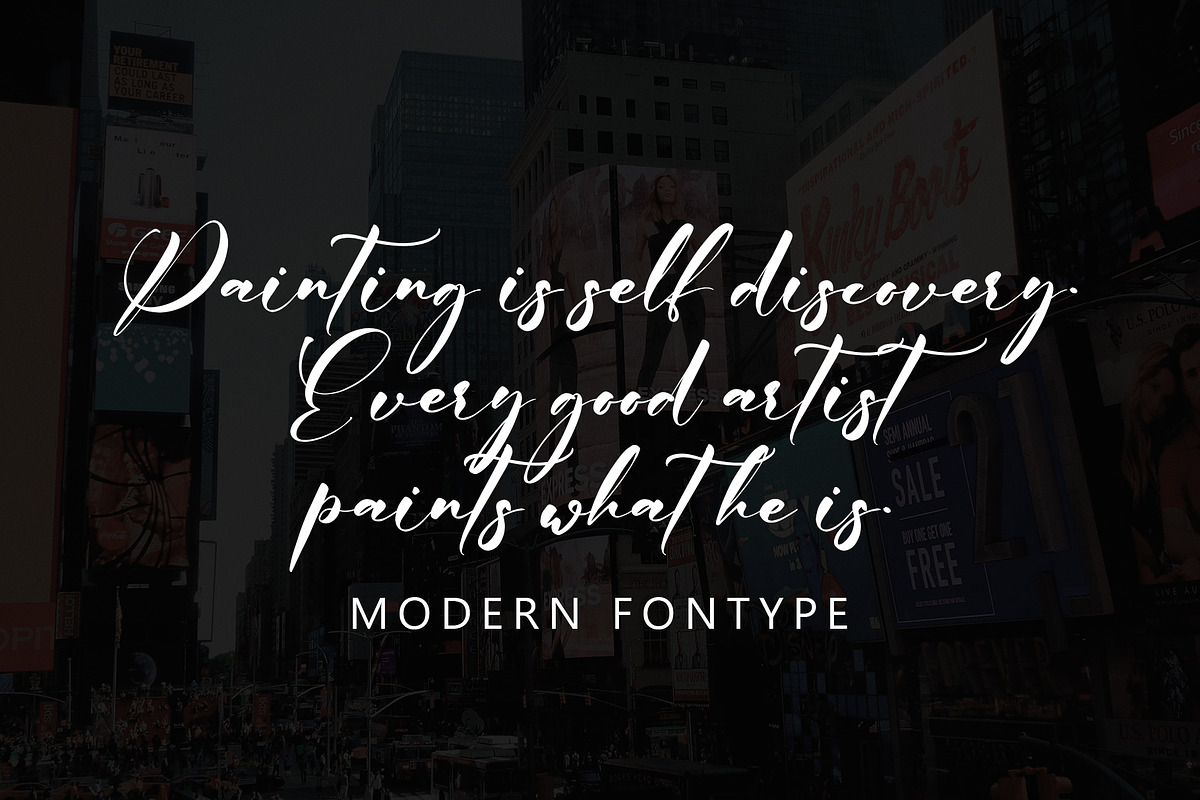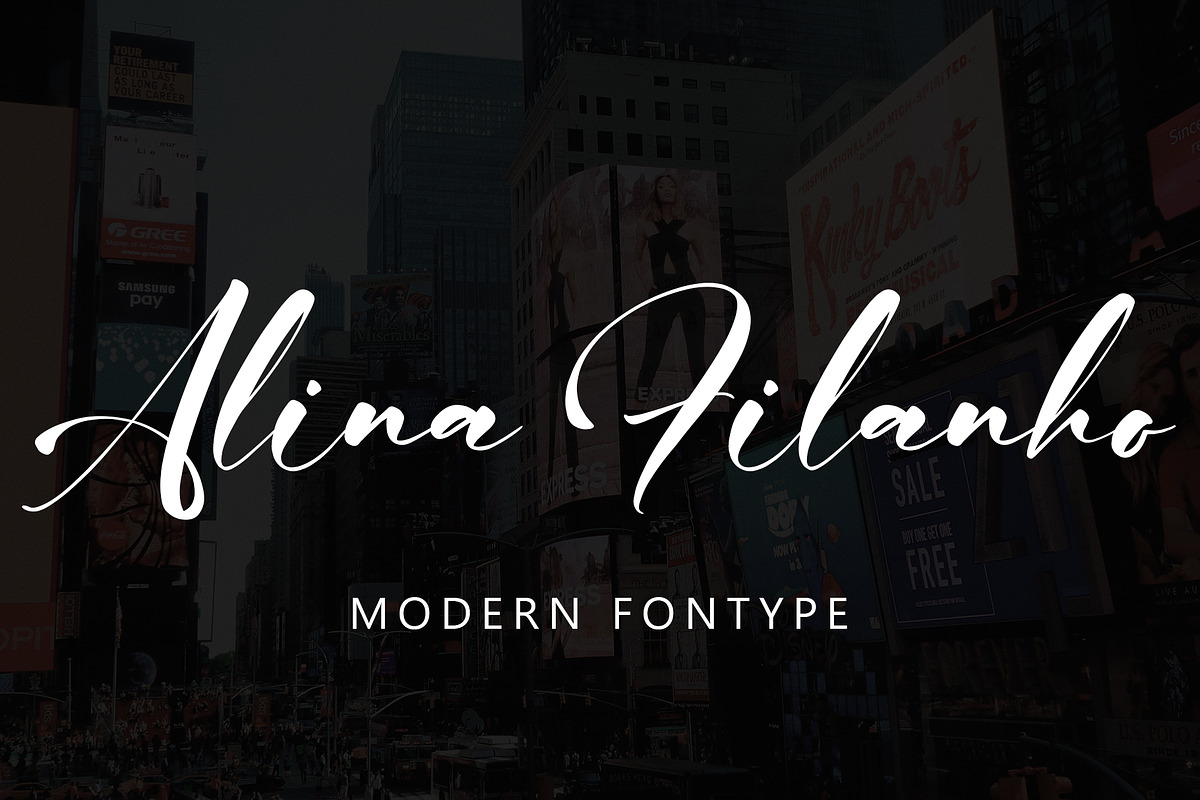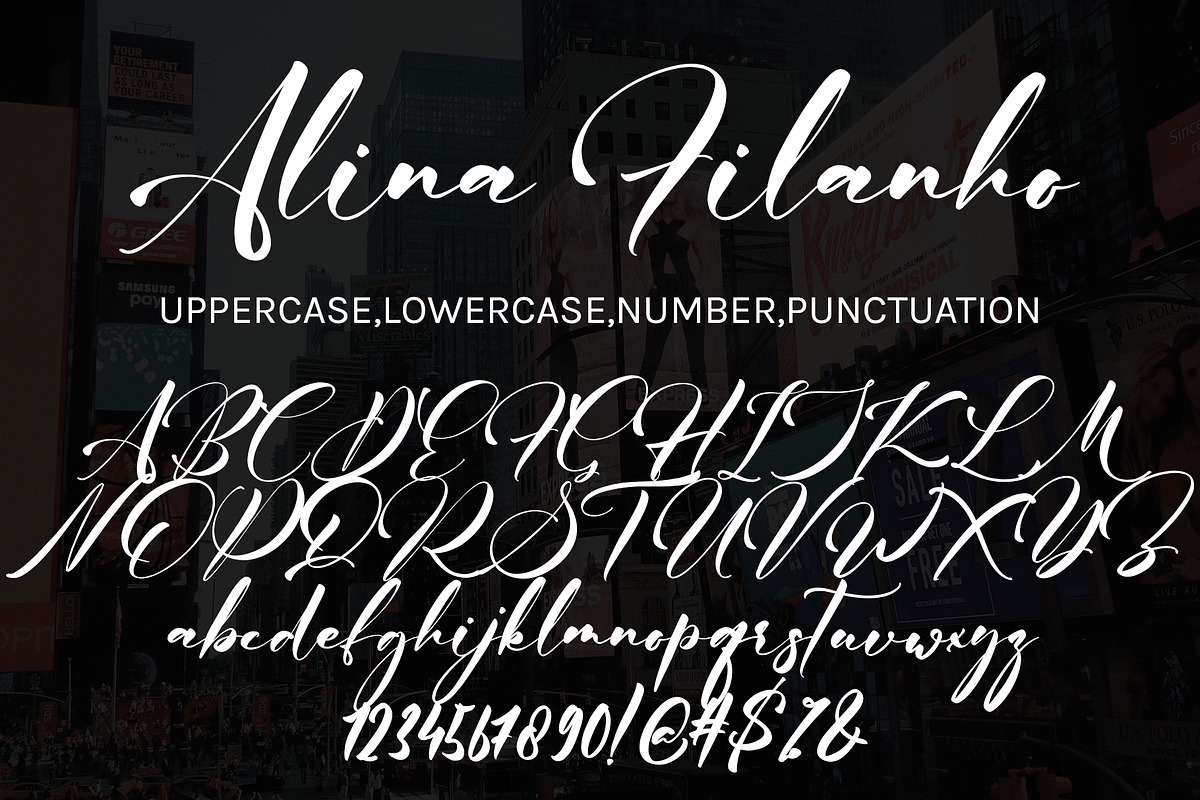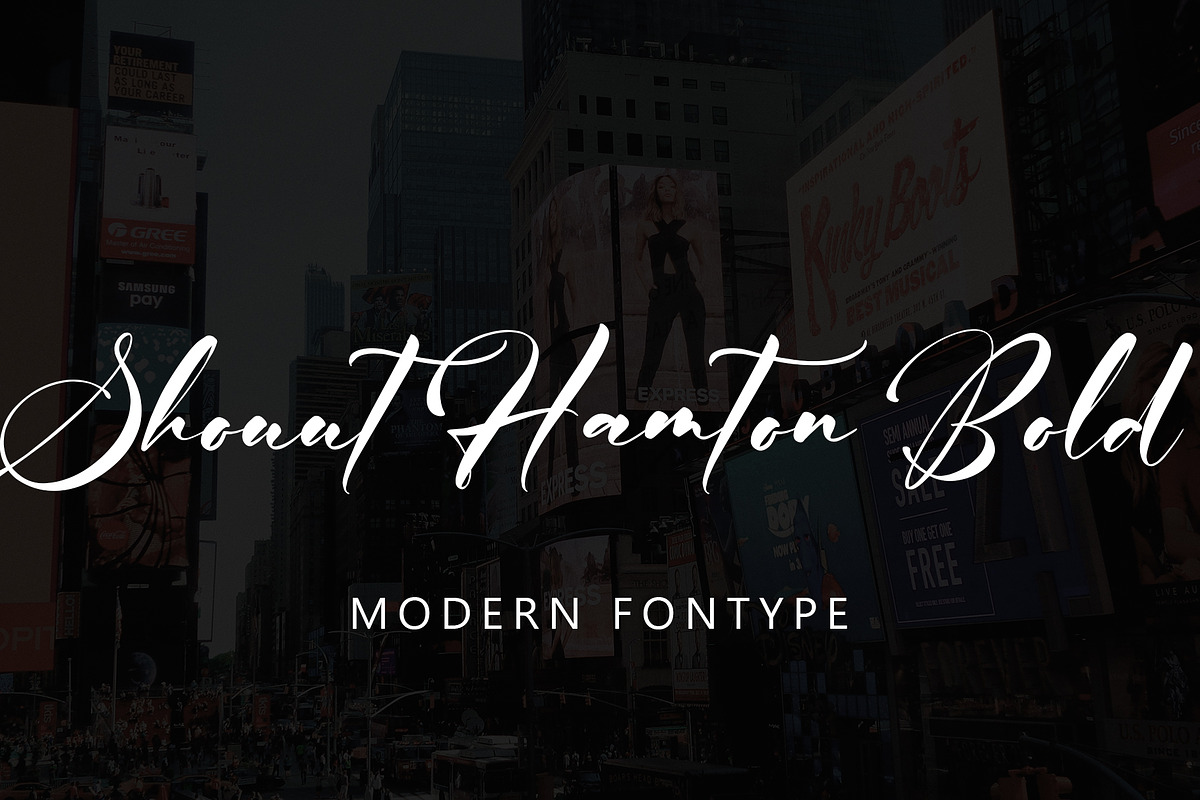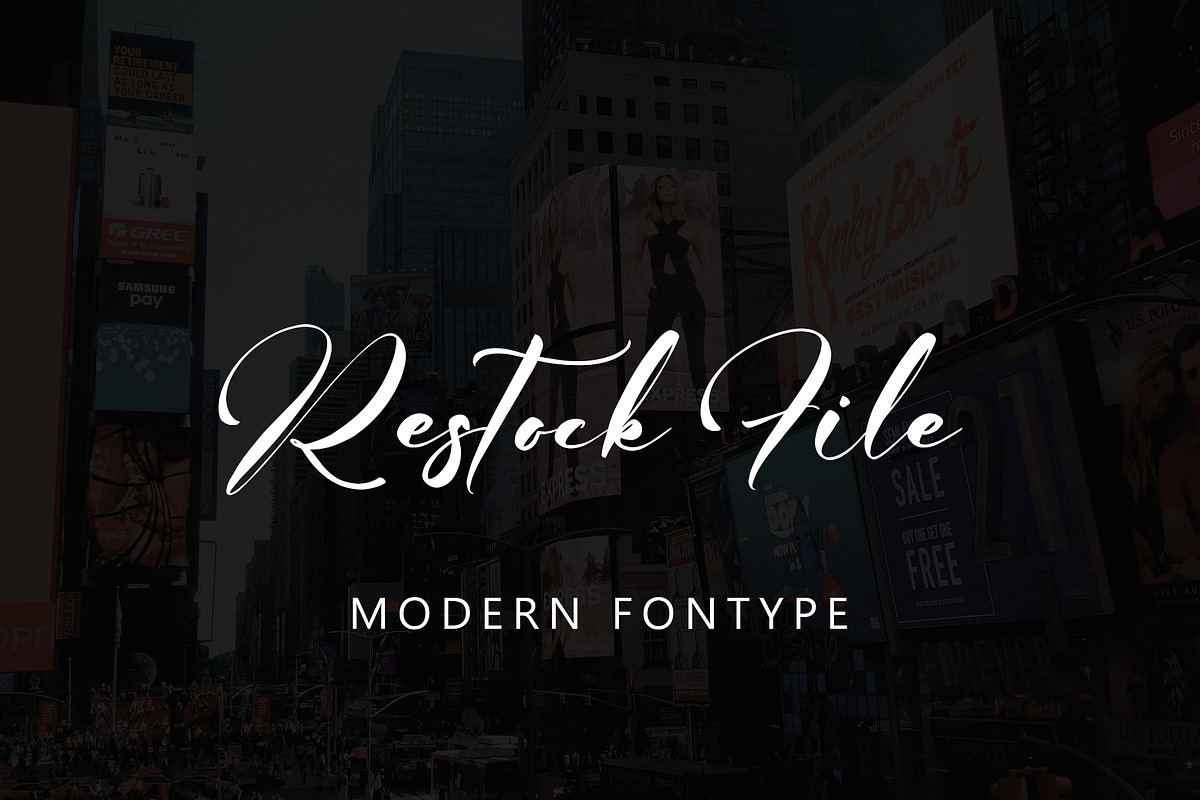
Alina Filanho
Alina Filanho with new style, this font will perfect for many different project ex: quotes, logo, blog header, poster, banding, letter, invitation, stationery, etc...